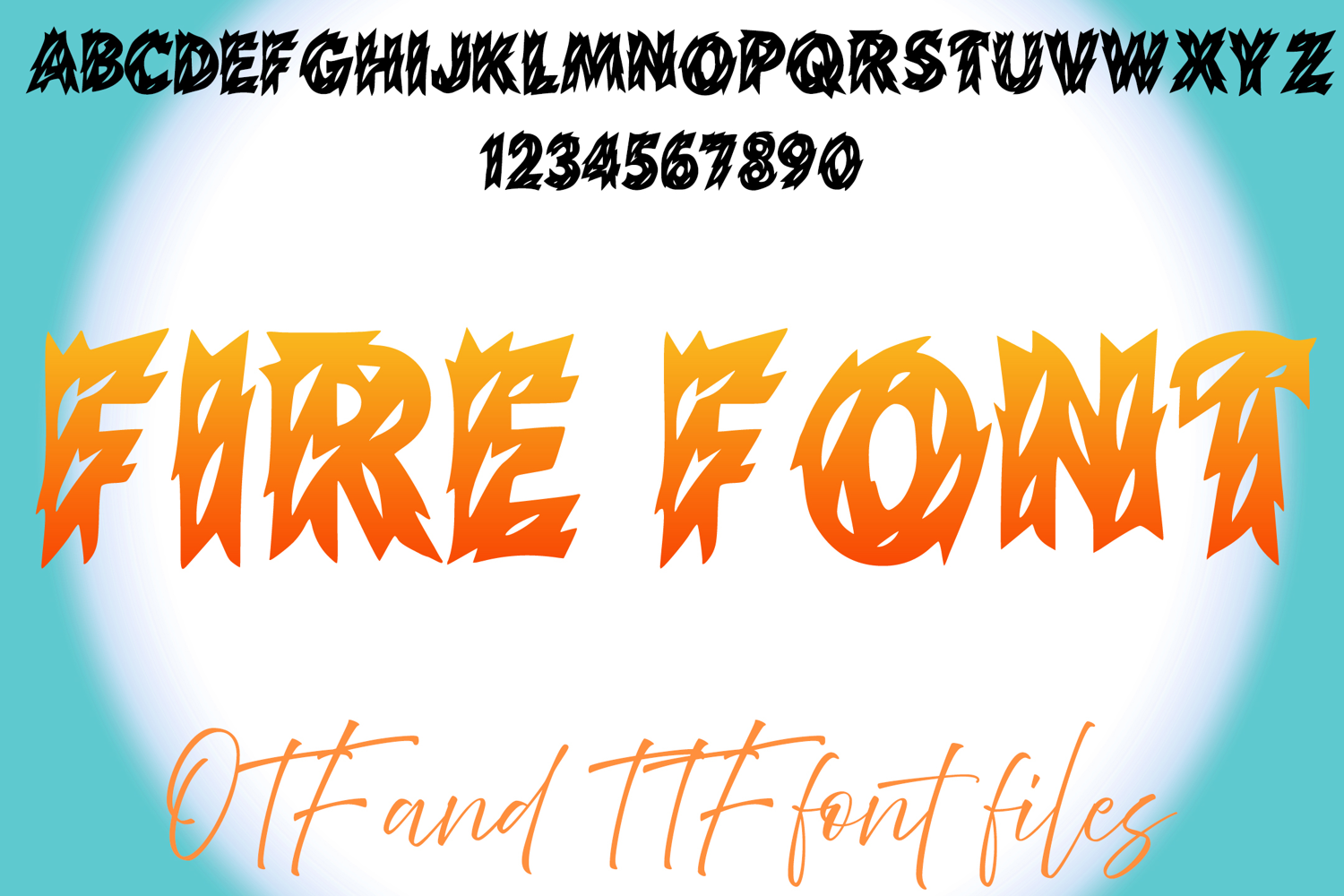
Fire Flames Alphabet Lettering ABC Text Font Typeface OTF Illustration
A cartoon style font where you can create your own words and colour them to your vision!